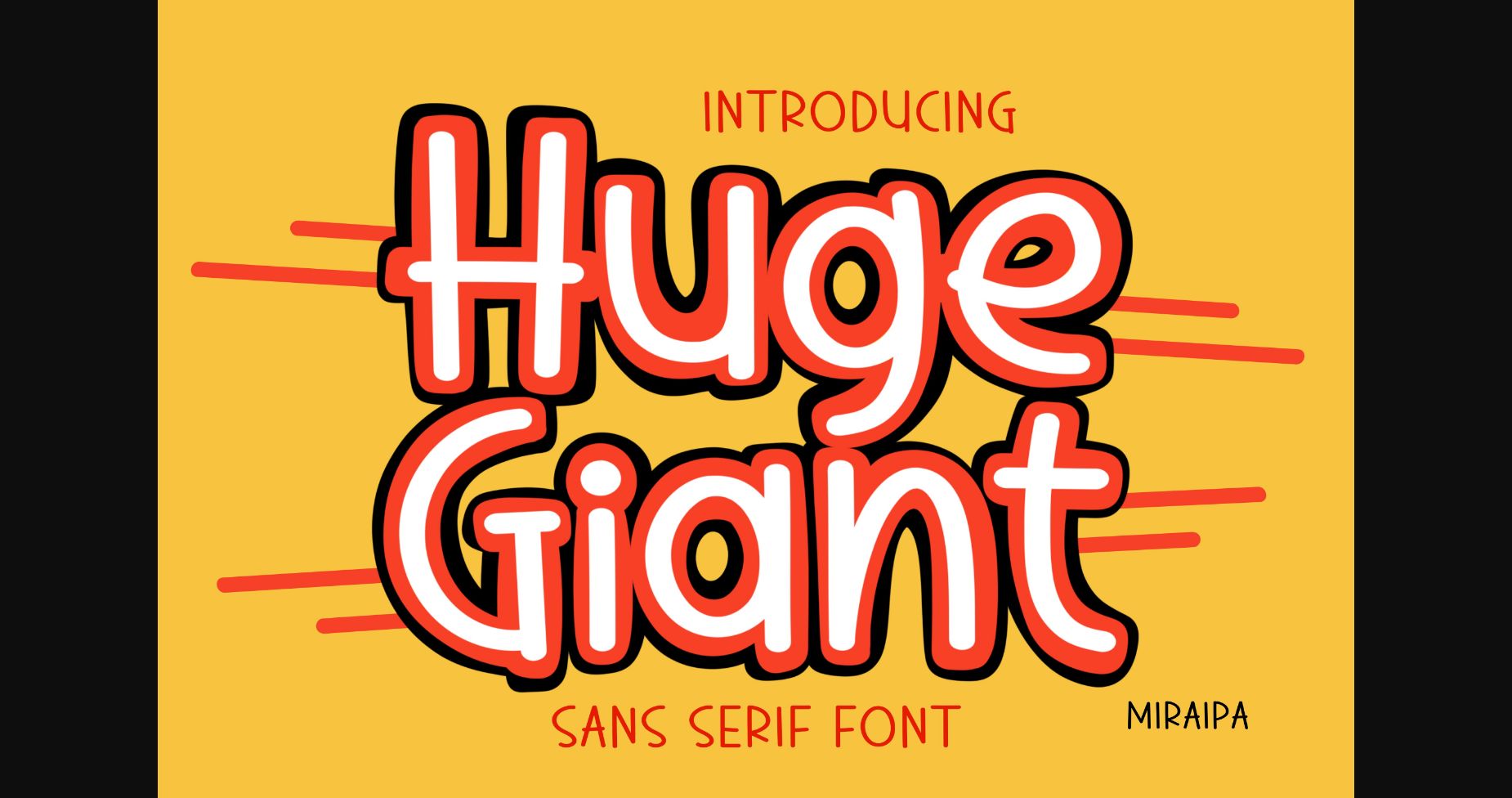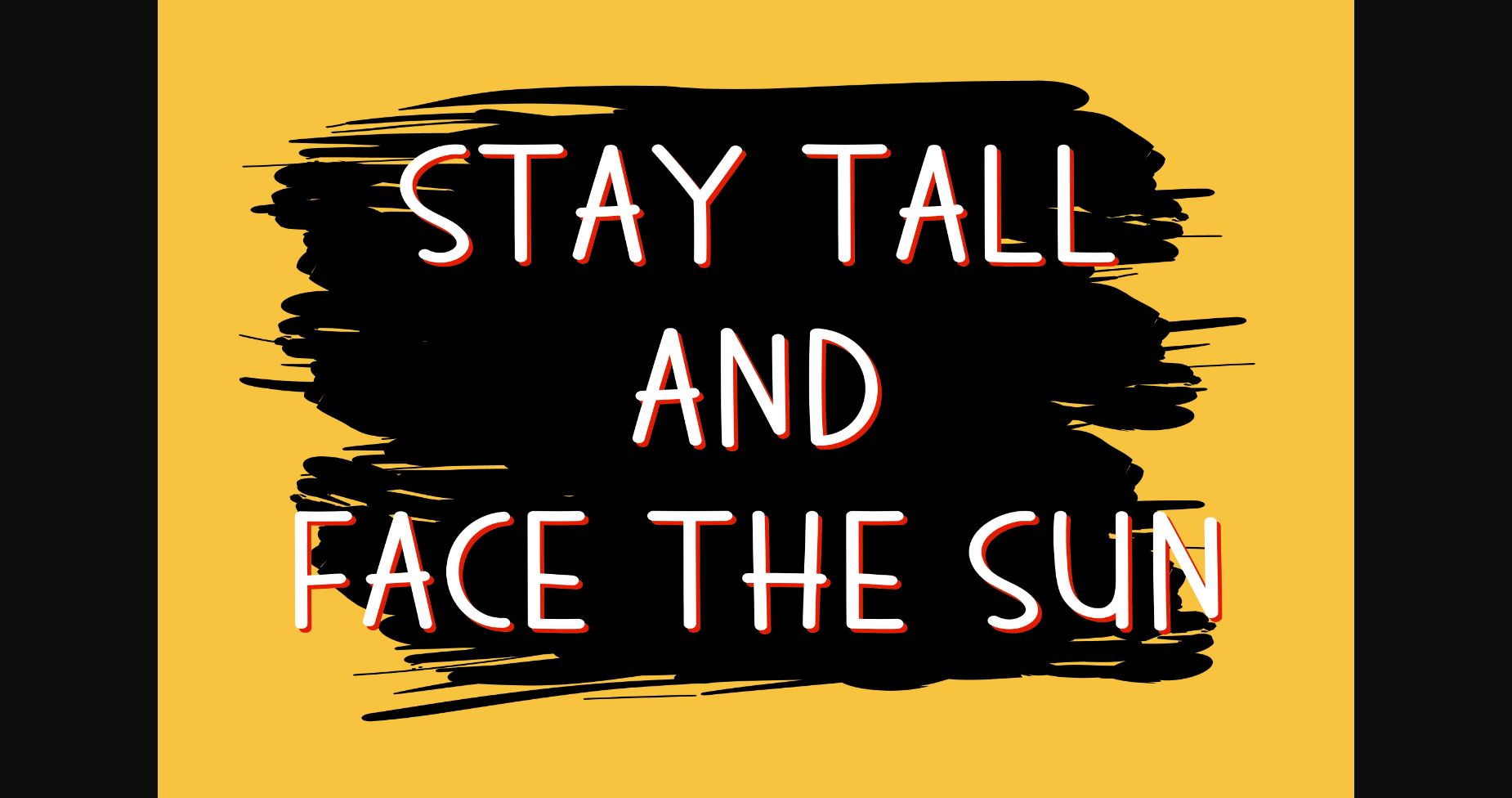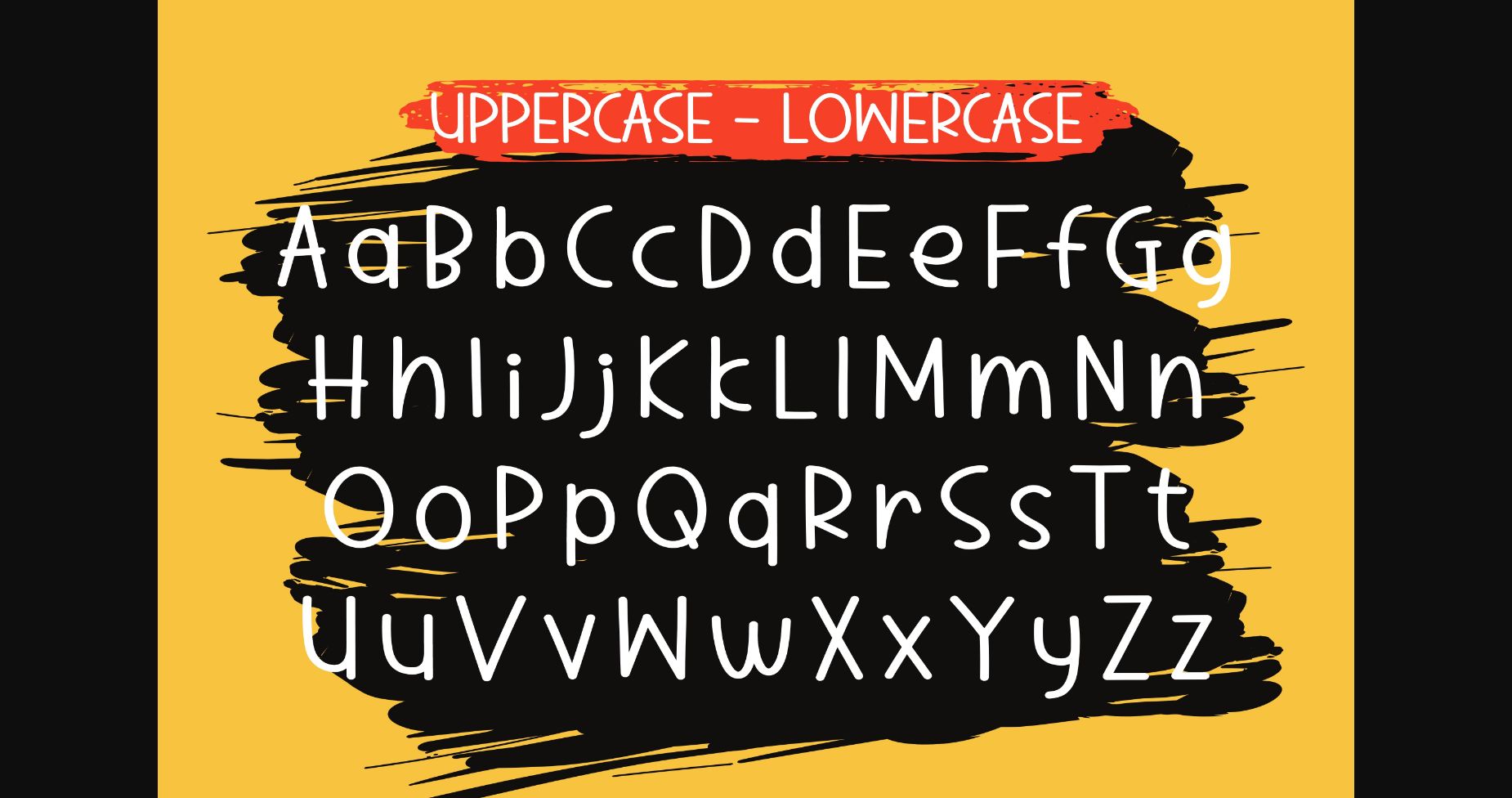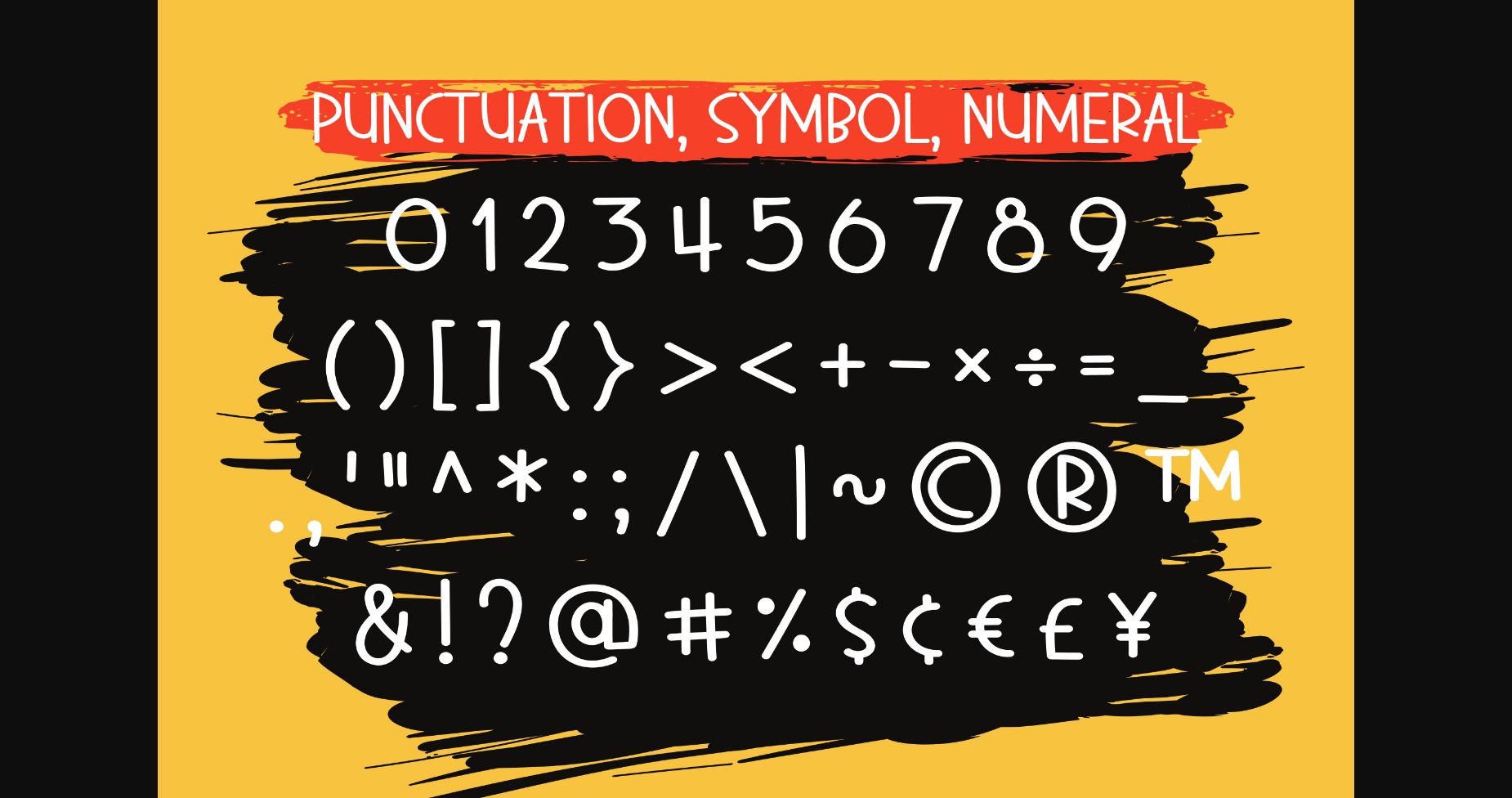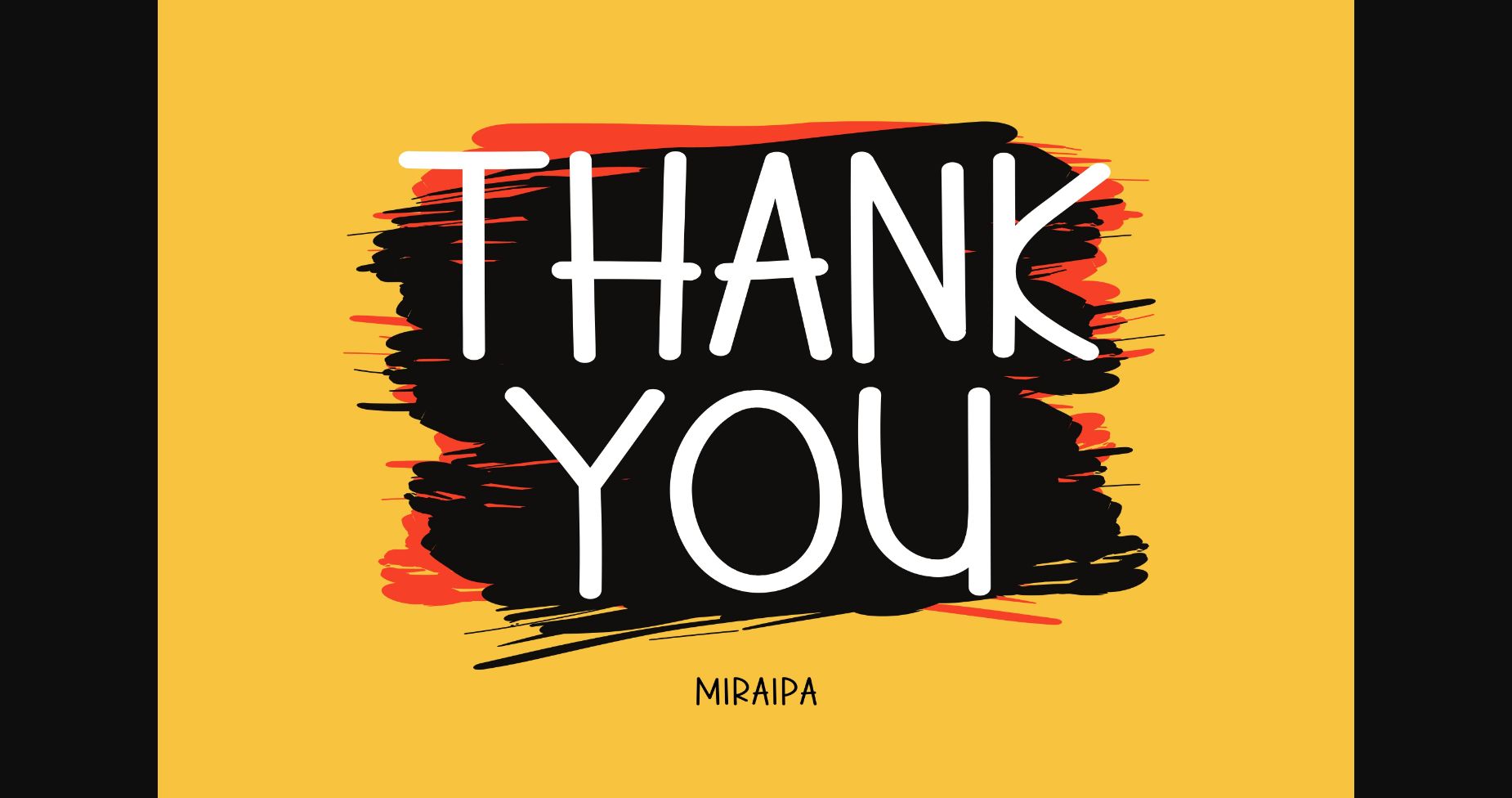
Huge Giant is lovely and cute handwritten sans serif font. No matter the topic, this font will be an incredible asset to your fonts’ library, as it has the potential to elevate any creation.